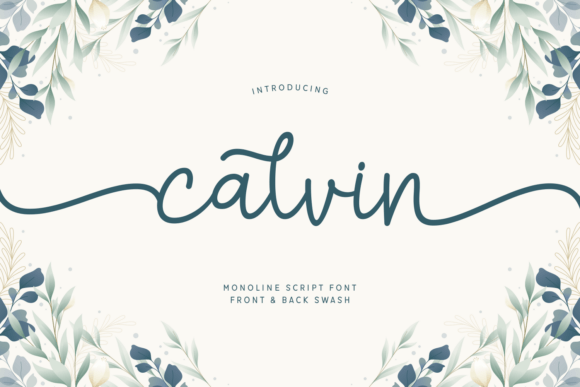
I still remember the countless hours I spent scrolling through font libraries, searching for the perfect script font for a wedding invitation project. My client wanted something elegant, yet modern; something that would make their special day feel truly unforgettable. As I sifted through page after page of fonts, I began to feel like I’d never find the one. That was until I stumbled upon Calvin, a stunning modern monoline script font that stole my heart.
First Impressions: A Love Letter to Calvin
Calvin is a masterclass in elegant design. Its smooth, continuous strokes and minimalist style make it perfect for a variety of creative projects, from wedding stationery to lifestyle blogs and organic product packaging. Here are just a few things I love about Calvin:
- ✨ Elegant front and back swashes for a polished finish
- ✅ Balanced weight and natural flow for easy readability
- 💫 Minimalist style that’s both modern and timeless
- 🎨 Versatile and perfect for a range of creative projects
The Honest Review: Not Perfect, But Near
While Calvin is an exceptional font, it’s not without its quirks. Here are a few things to keep in mind:
- 🤔 Limited character set compared to some other script fonts
- ⚠️ Some users may find the font too delicate for certain design applications
However, for the most part, Calvin’s strengths far outweigh its weaknesses. With a little creativity and experimentation, you can achieve stunning results with this beautiful font.
The Story Behind Calvin: A Designer’s Inspiration
Calvin was designed with the modern creative in mind. Its creator sought to craft a font that was both elegant and approachable, perfect for a range of design applications. With its smooth strokes and minimalist style, Calvin is the perfect blend of form and function.
Q: What makes Calvin unique?
A: Calvin’s unique blend of modern monoline script and elegant swashes sets it apart from other fonts.
Q: Is Calvin suitable for body text?
A: While Calvin is beautiful, it’s best suited for display text and headings. Its delicate style may not be ideal for long-form body text.